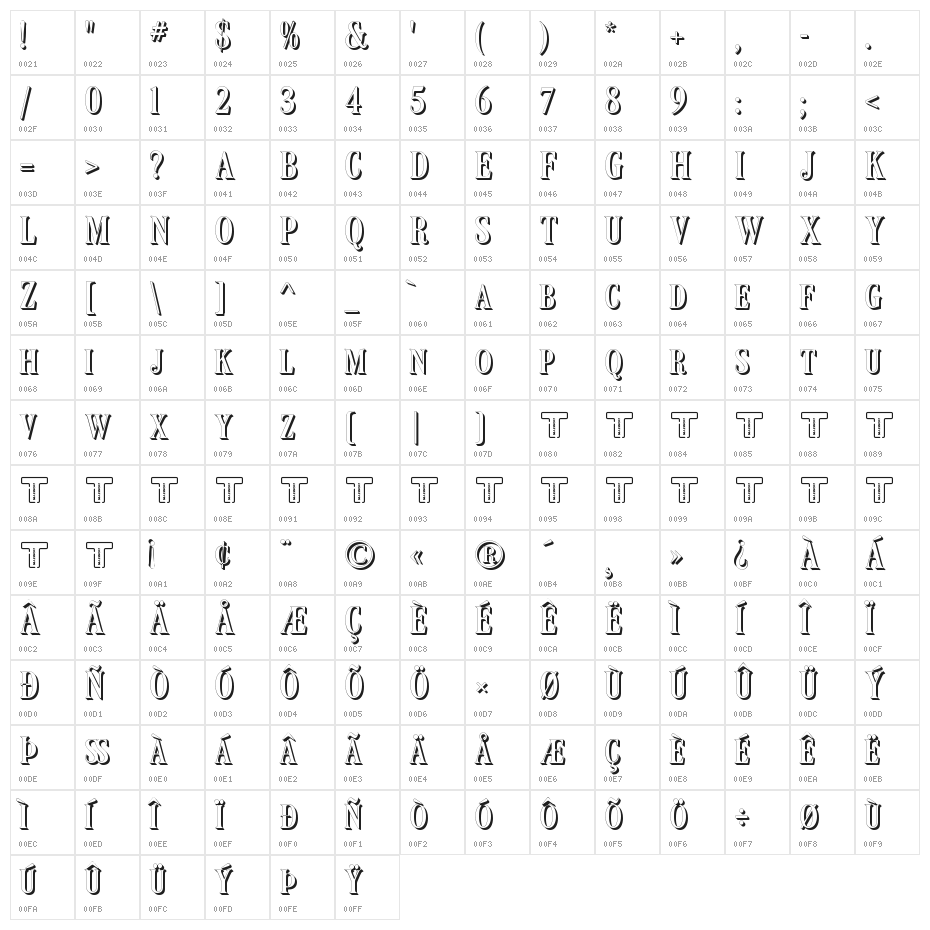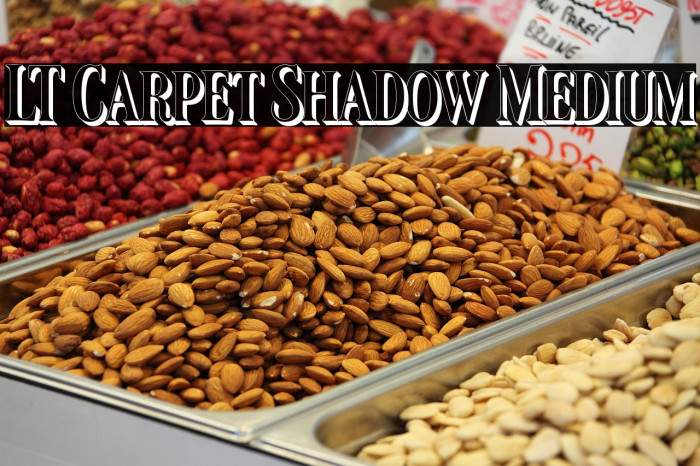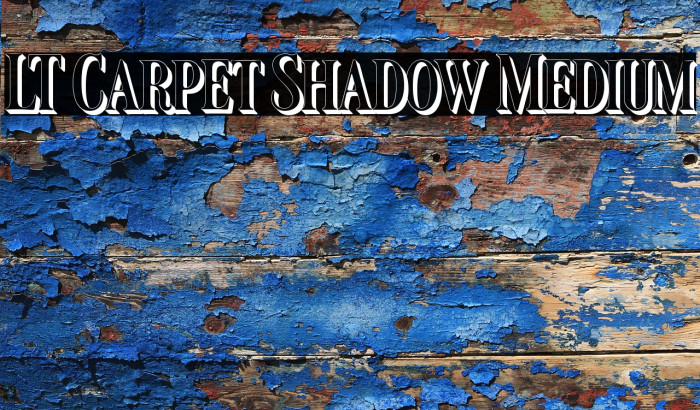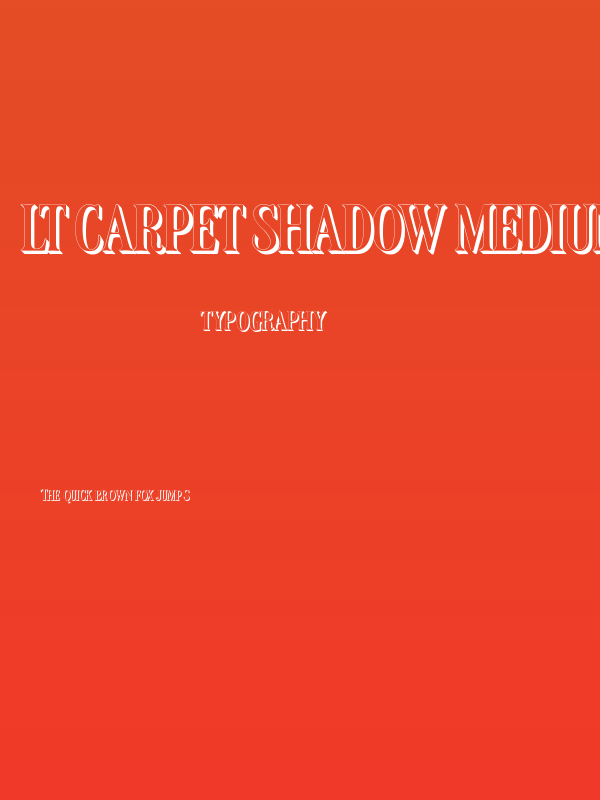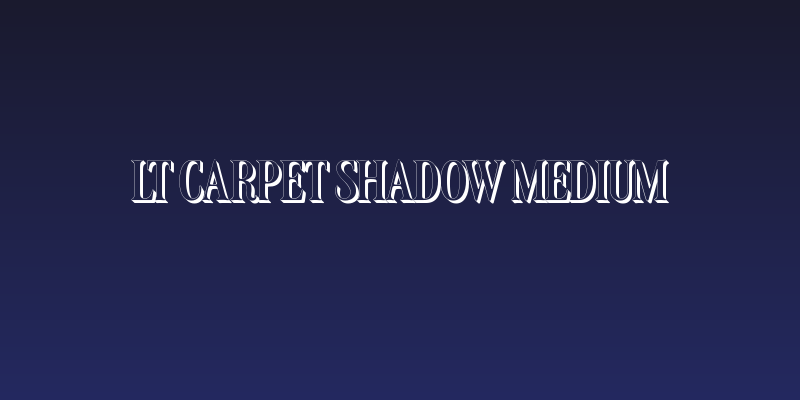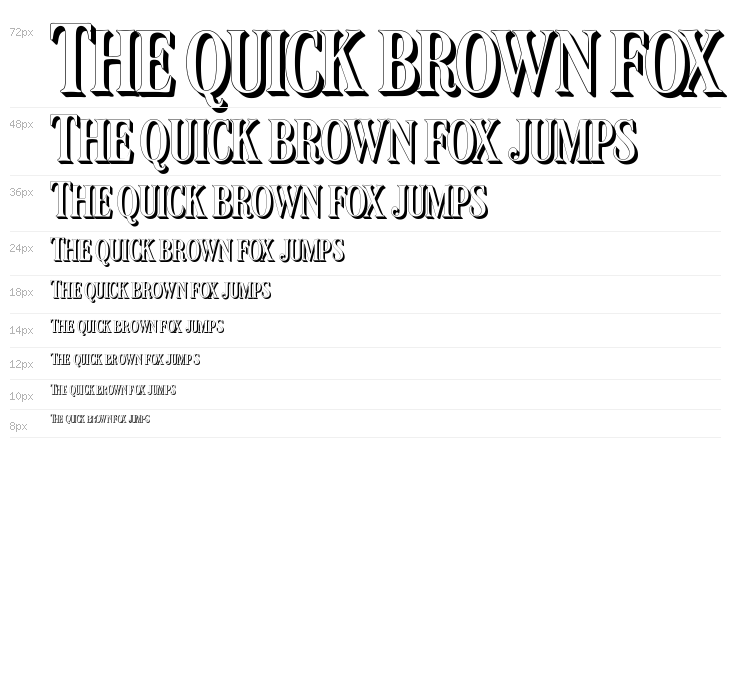
LT Carpet Shadow Medium Font
LT Carpet Shadow Medium Description
This font features a bold and striking design with a three-dimensional shadow effect that gives it depth and presence. The characters are serifed, with each letter having a distinct, sharp edge that enhances its readability and impact. The shadow effect is consistent across all characters, providing a cohesive look that is both modern and classic. The numbers and special characters are designed with the same attention to detail, ensuring uniformity throughout the font. This style is particularly effective for creating eye-catching headlines or titles that need to stand out.